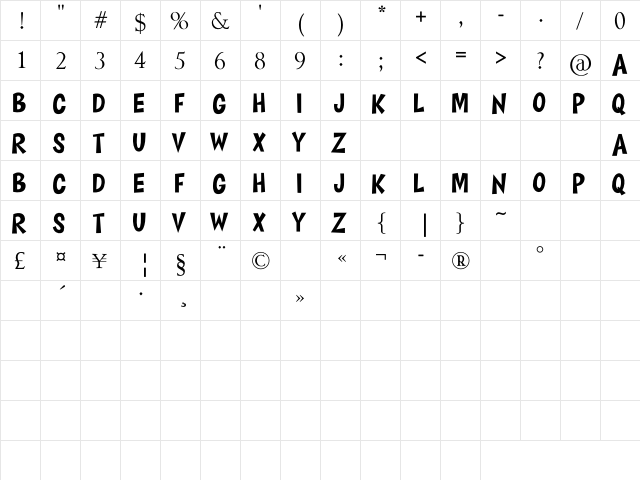
HAPPY COMIC Regular
| Designer | Donis Miftahudin |
Design Context for HAPPY COMIC Typeface
HAPPY COMIC trades formality for fun, with bouncy, characterful letterforms that bring warmth and energy to any project.
Well-suited to food and beverage brands with personality, educational materials, and fun-forward identities.
Font Pairing: Pairs well with a rounded or humanist sans for body copy, maintaining the friendly tone without relying on HAPPY COMIC to carry extended reading.
Pro Tip: Use HAPPY COMIC at larger display sizes where its expressive character can land. Pair with a clean, simple sans for body copy to maintain readability.